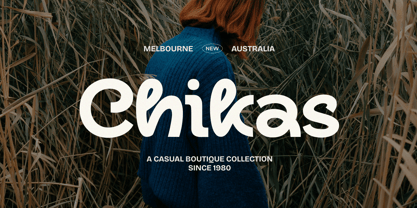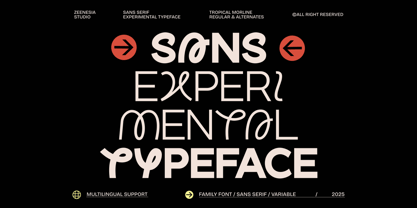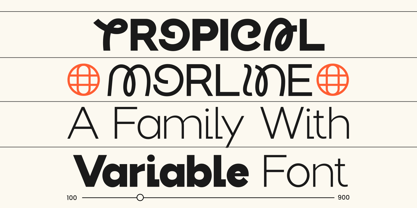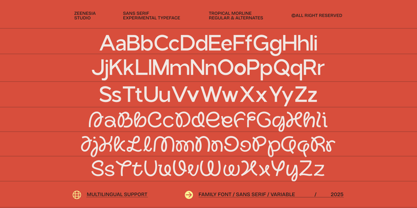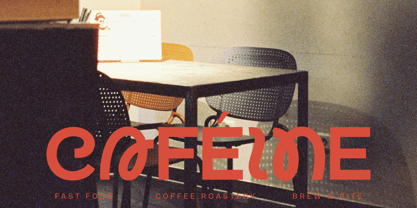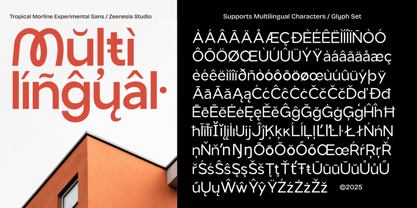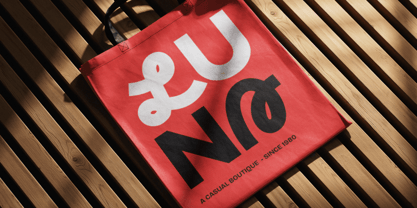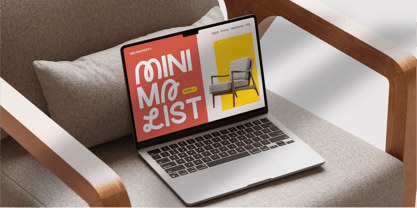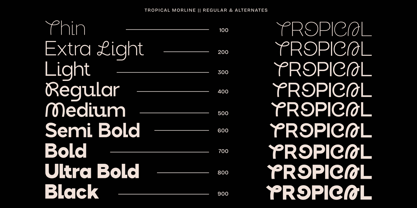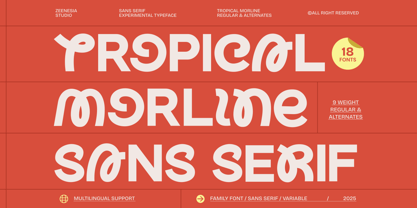
Tropical Morline
by Zeenesia Studio
The Tropical Morline Font Family was designed by Doni Purwoko and published by Zeenesia Studio. Tropical Morline contains 20 styles and family package options. More about this family
Tropical Morline is an experimental sans serif typeface inspired by playful tropical energy and expressive letterforms. Designed with soft curves, bold proportions, and distinctive alternates, it brings a fresh and joyful personality to any design. This typeface features 2 styles — Regular and Alternate, along with 9 weights ranging from Thin to Black, giving designers full flexibility for both subtle and bold visual expressions. It also includes a Variable Font, making it easy to adjust weight seamlessly for modern workflows. With rich alternate characters and carefully crafted letterforms, Tropical Morline allows designers to create dynamic, eye-catching compositions while maintaining strong readability and a decorative yet modern feel. Perfect for branding, posters, packaging, headlines, editorial layouts, and creative projects that demand character and warmth, Tropical Morline stands out without losing versatility. Multilingual support is included. Tropical Morline — where experimental form meets tropical charm.